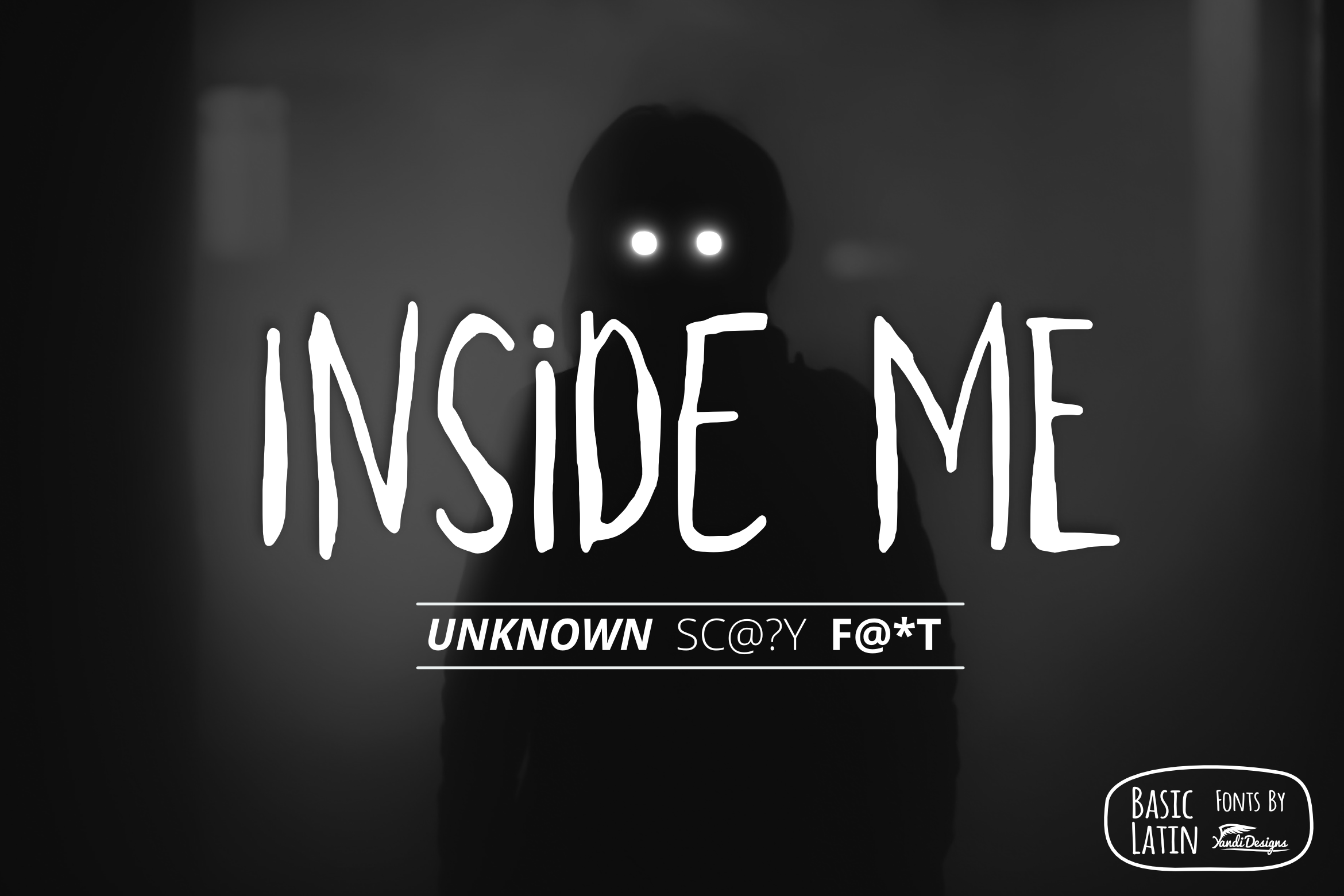
Inside Me Font
Just simple font , suitable for many project , quotes, logo , doodle, heading , title etc.
Unicode Basic Latin (Standard English character , number, symbol)